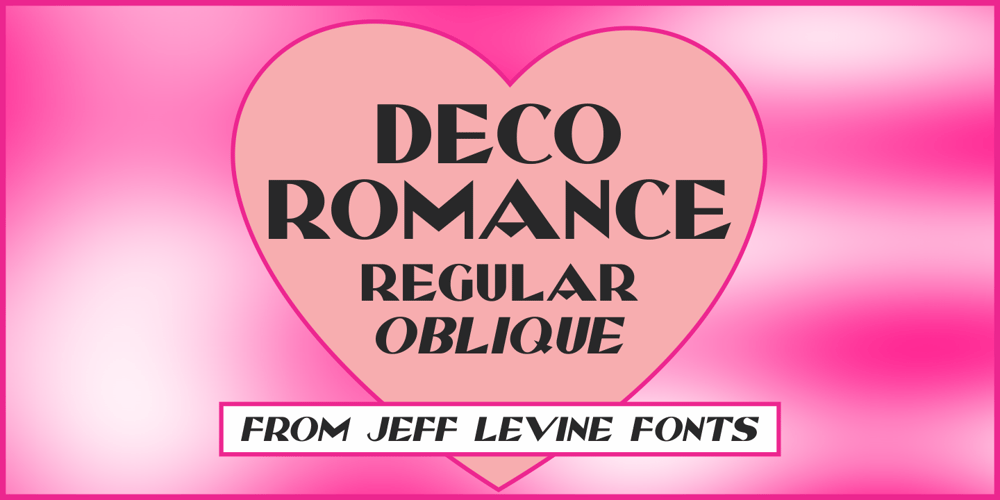
Deco Romance JNL
Deco Romance JNL font
Deco Romance JNL Font Family was designed by Jeff Levine and published by Jeff Levine. Deco Romance JNL contains 2 styles and family package options. From the cover of the 1932 sheet music for “A Great Big Bunch of You” comes a hand-lettered Art Deco type design; boldly hand lettered with contrasting angled lines and varying character widths. Deco Romance JNL is available in both regular and oblique versions.